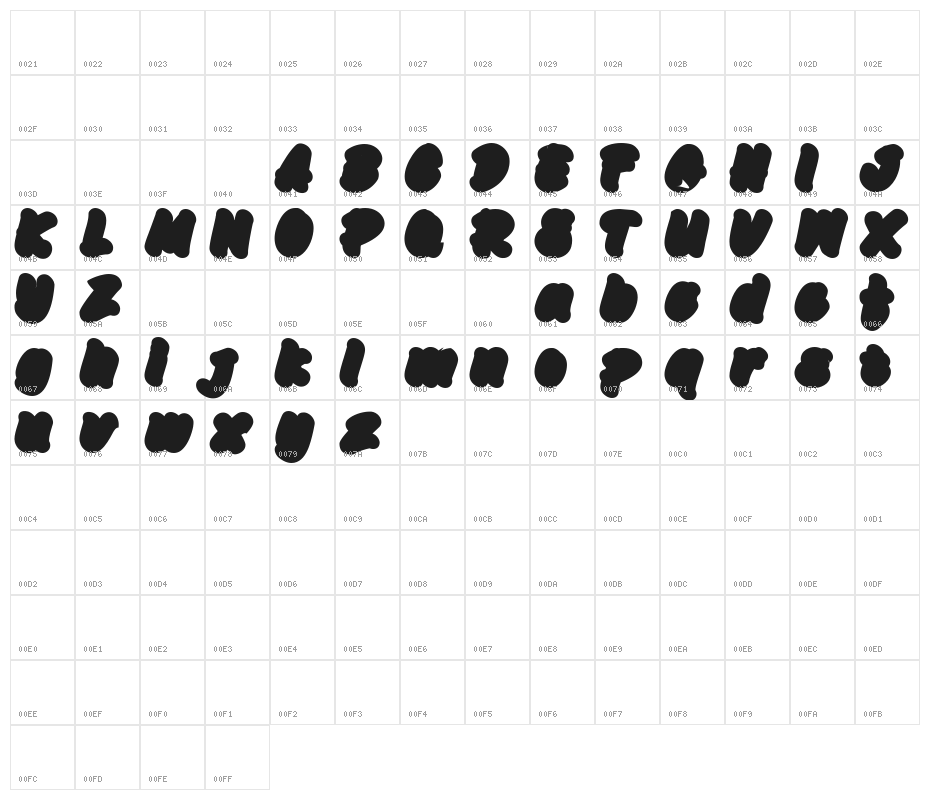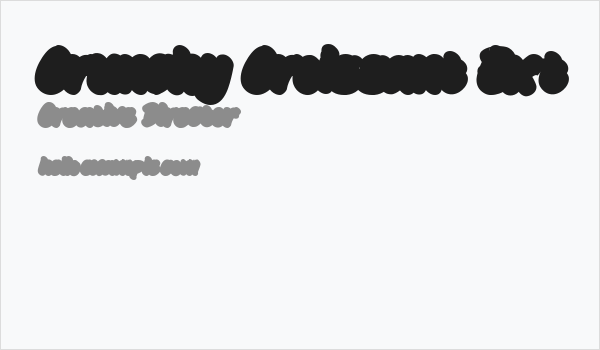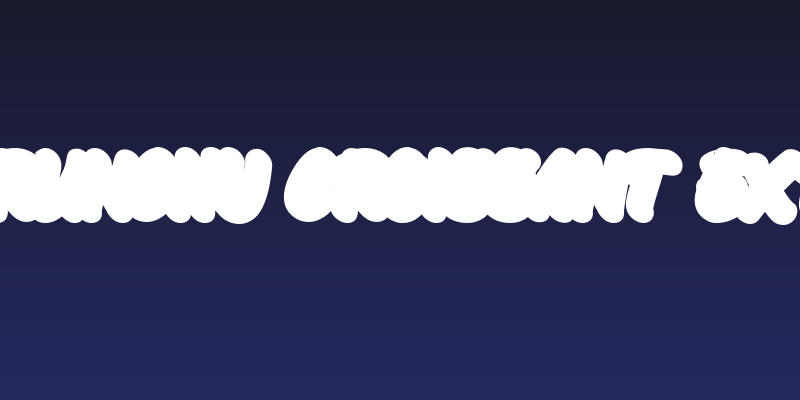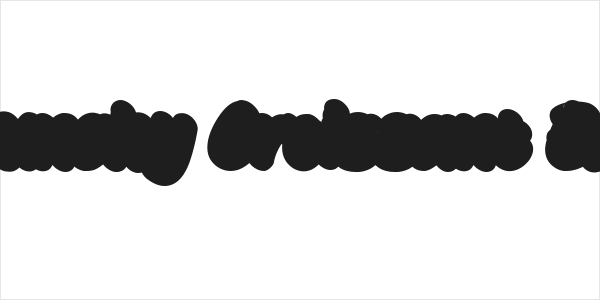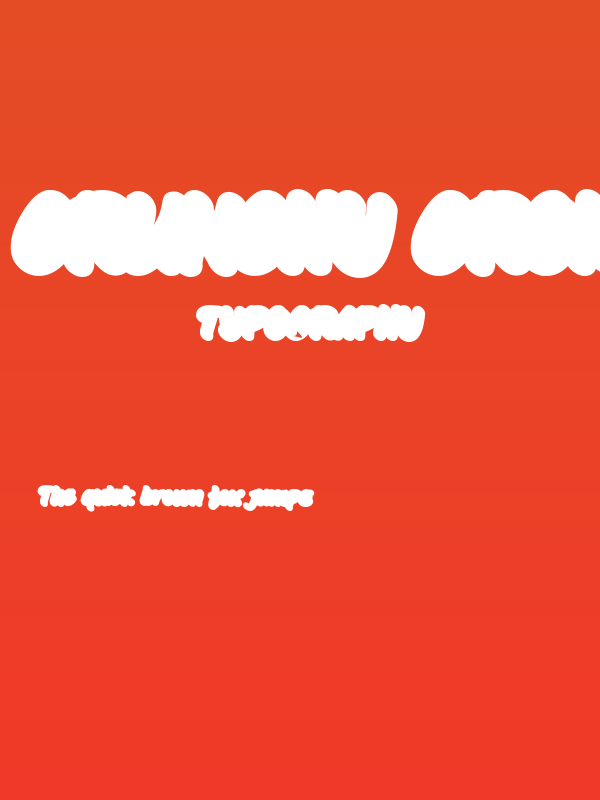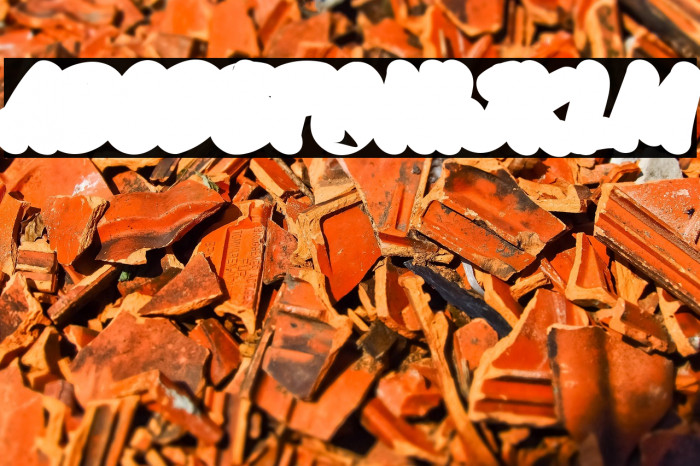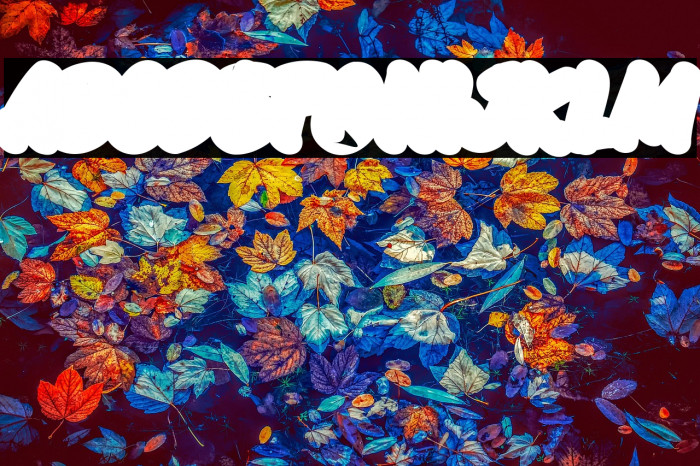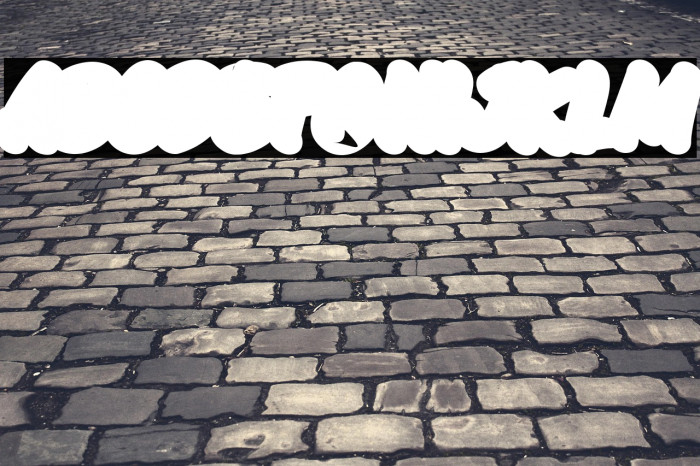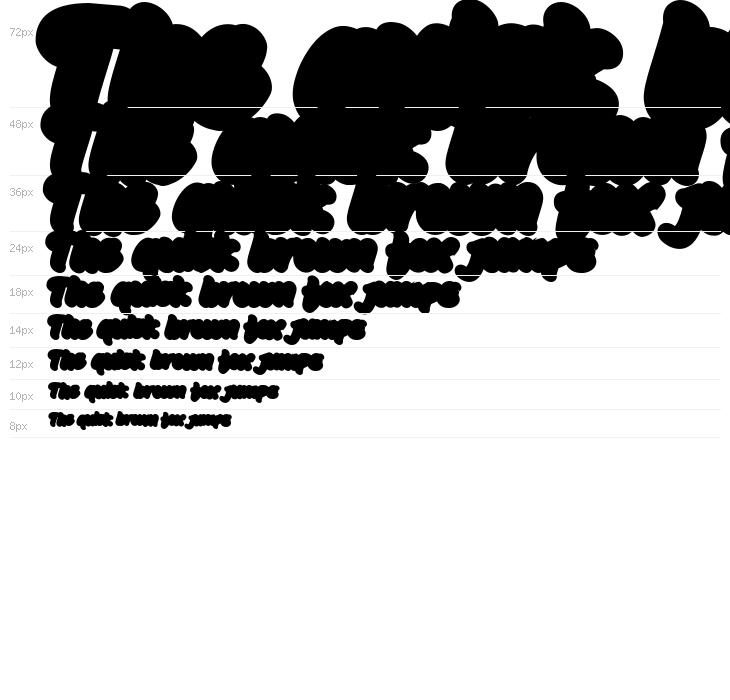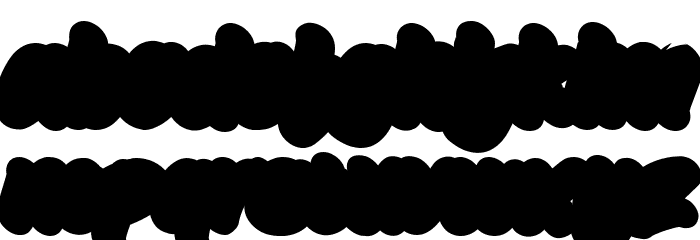
Crunchy Croissant Ext Font
Crunchy Croissant Ext Description
This font features a bold, playful design with a bubbly, rounded appearance. Each character is heavily stylized, creating a sense of fun and whimsy. The strokes are thick and consistent, giving the font a strong presence. The characters are closely packed, contributing to a cohesive and unified look. This font is ideal for projects that require a lively and energetic feel, such as children's books, playful branding, or event posters. Its unique style makes it stand out, ensuring that any text set in this font will capture attention.
| Overall Style | Playful, Energetic |
| Proposed Projects | Children's books, playful branding, event posters, party invitations. |